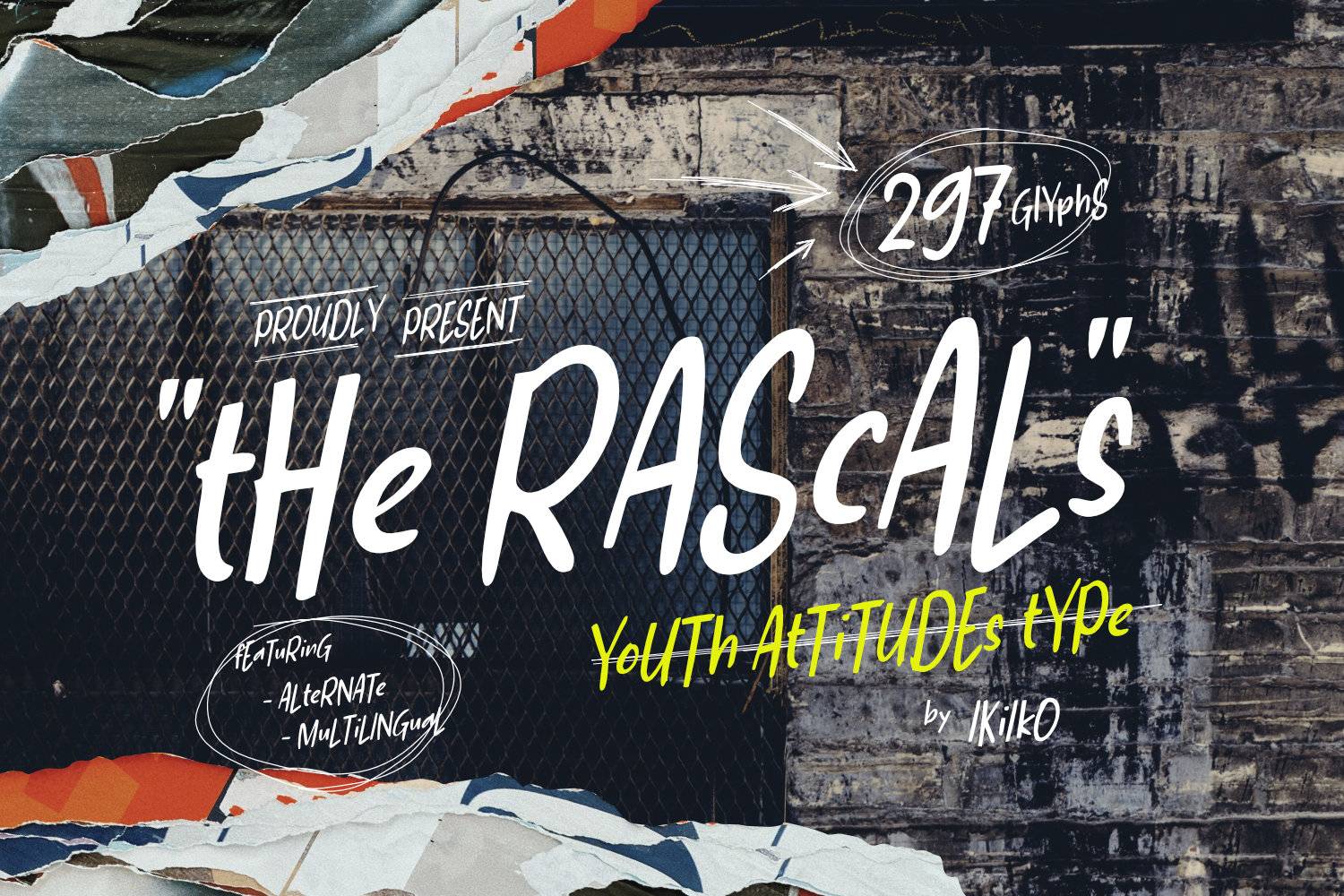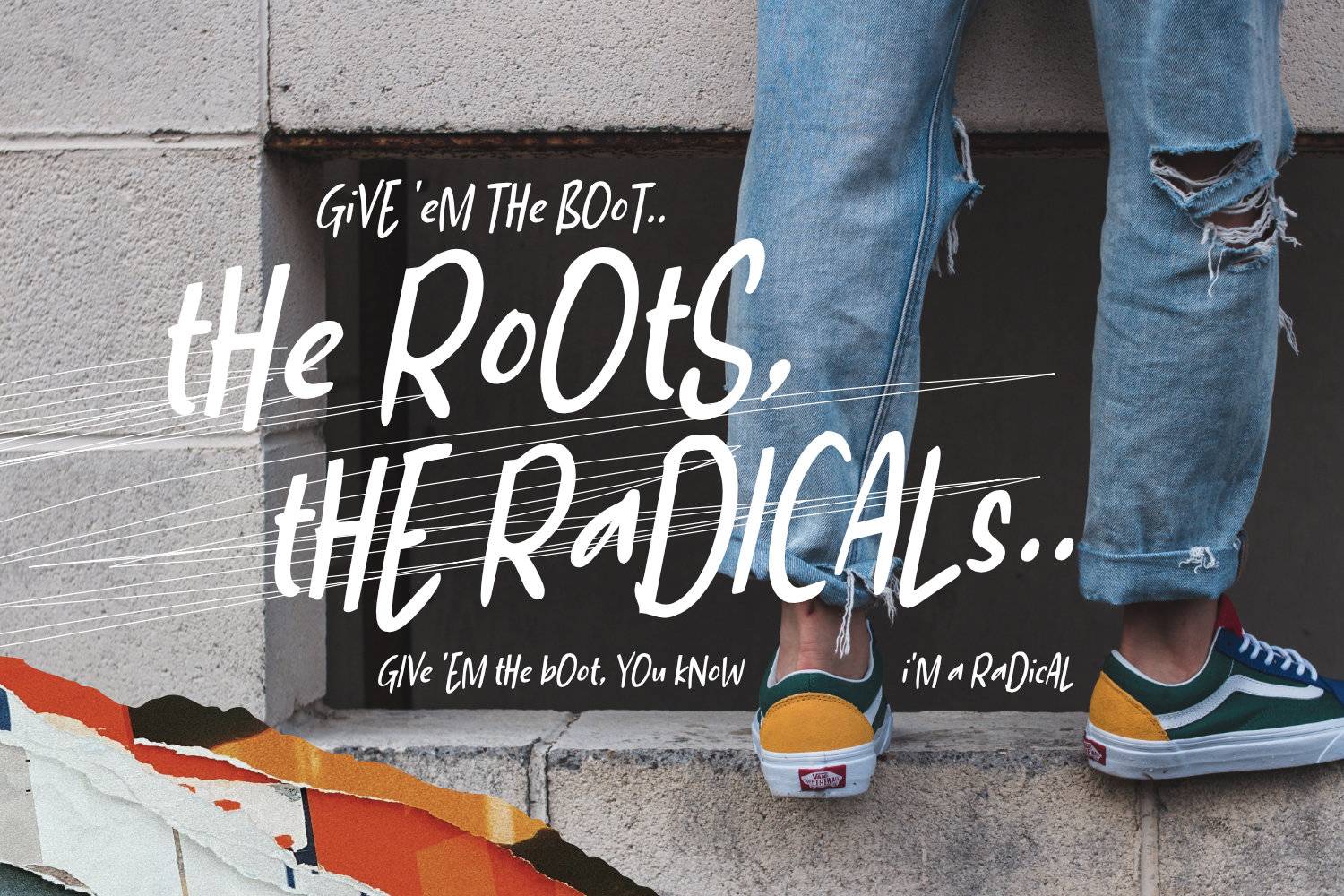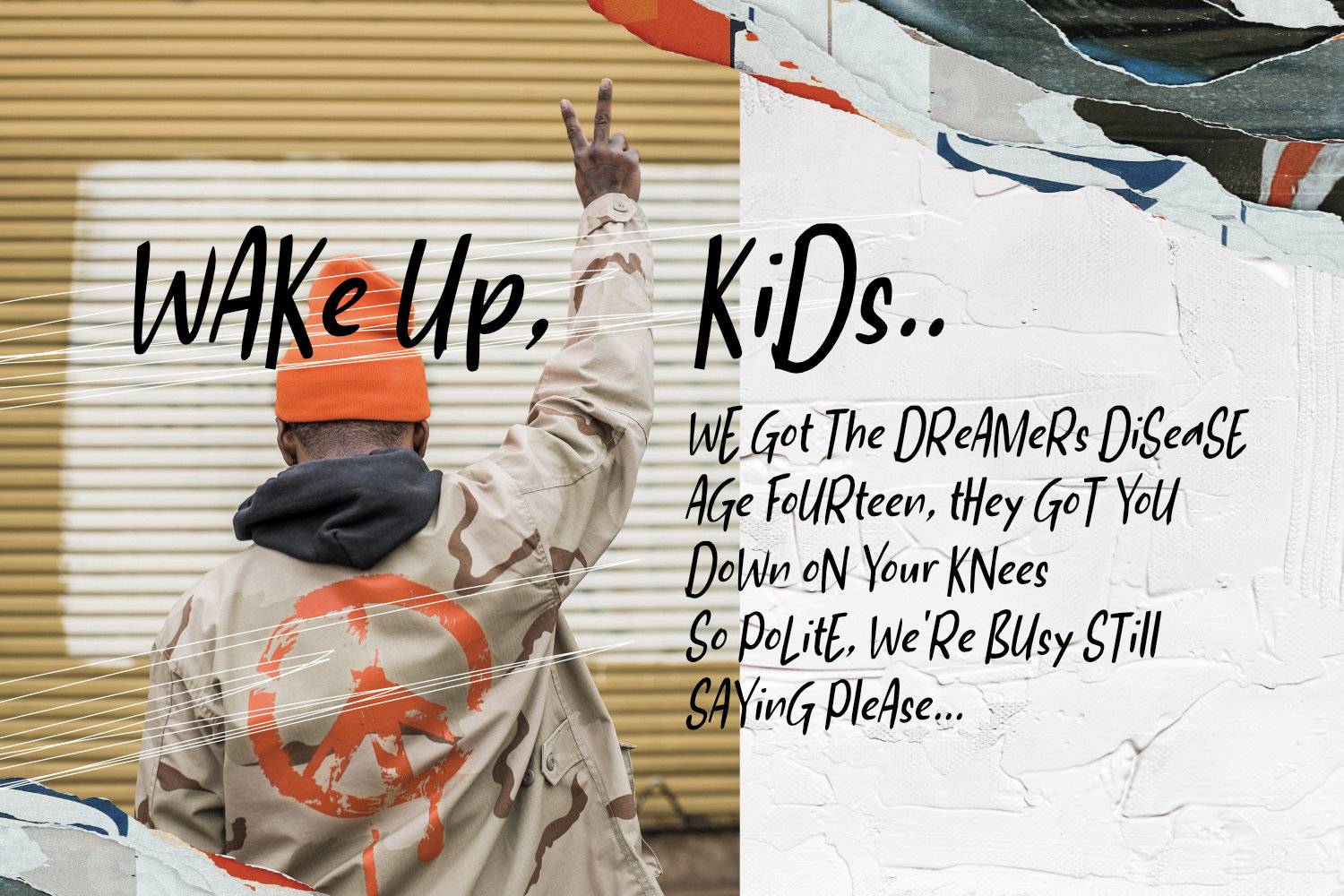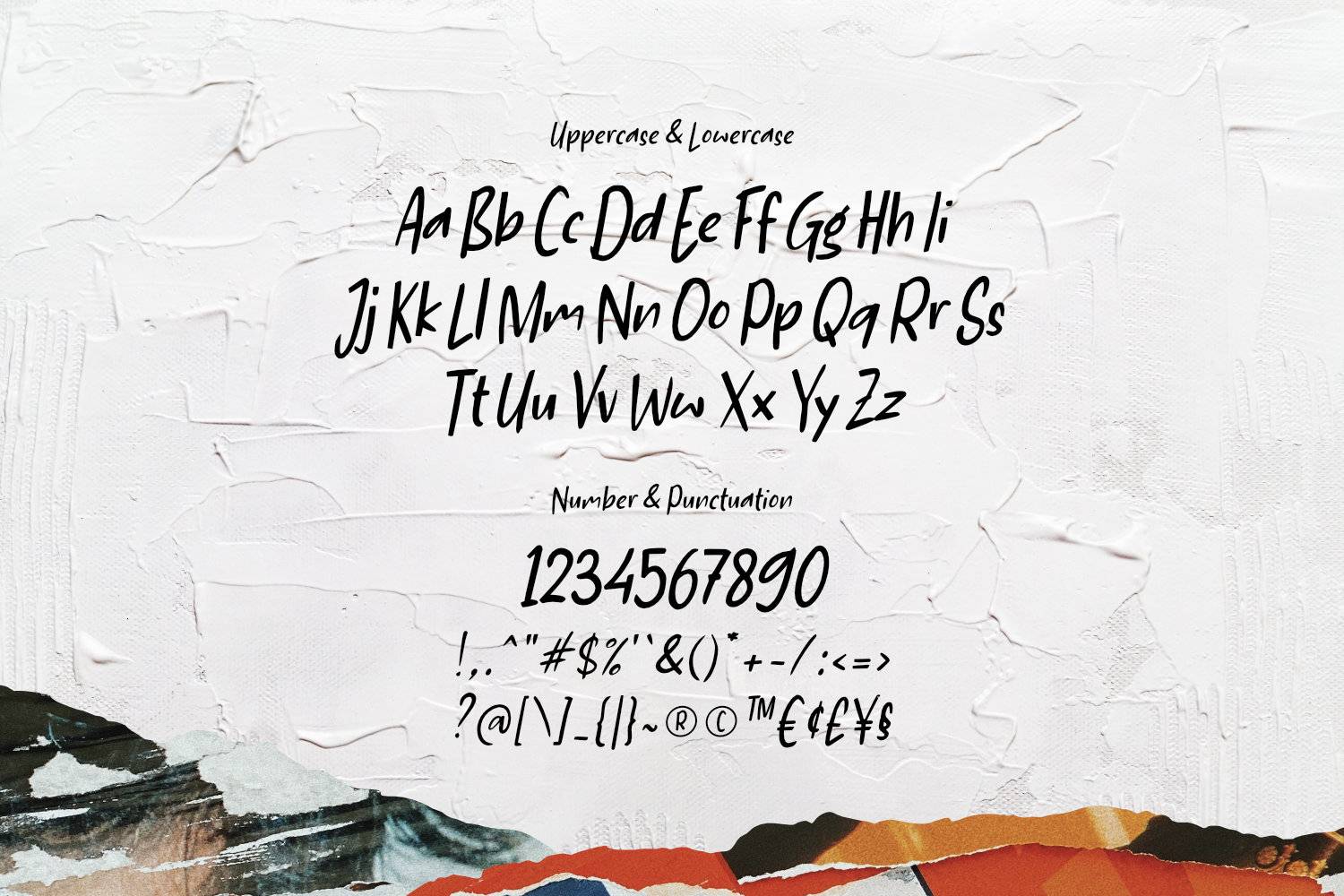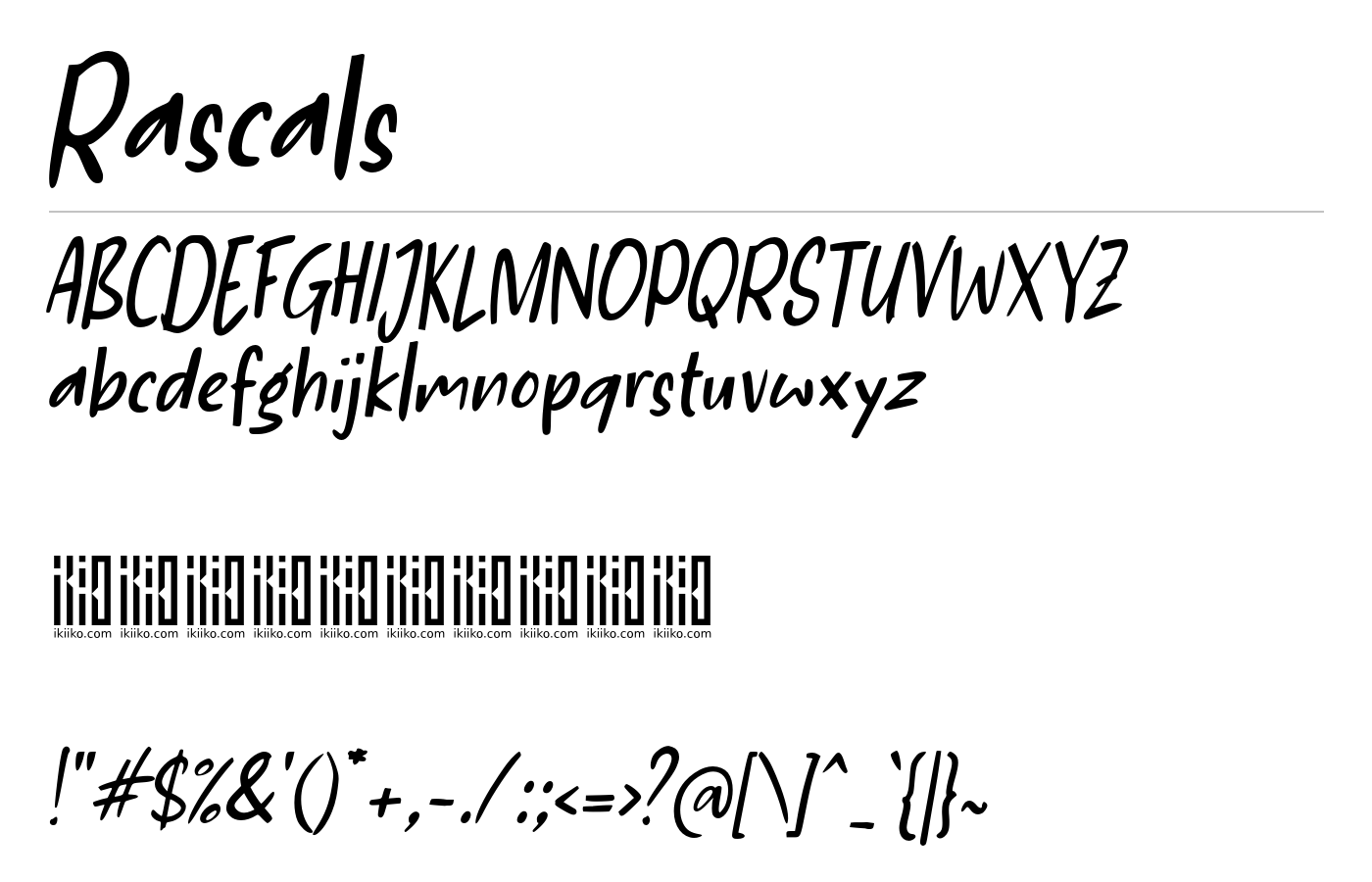
The Rascals is a playful, informal handwritten font with a lively and slightly uneven stroke that gives it a charming, approachable feel. Its upright, narrow letterforms and casual script style make it perfect for creative projects, children’s branding, or any design seeking a friendly, spontaneous vibe. This font works well for headlines, invitations, and packaging where a personal touch is desired.
The Rascals Font
About The Rascals Font
| Font family | The Rascals Font |
| Designer | Andhika Pradana, Wahyu Eka Prasetya |